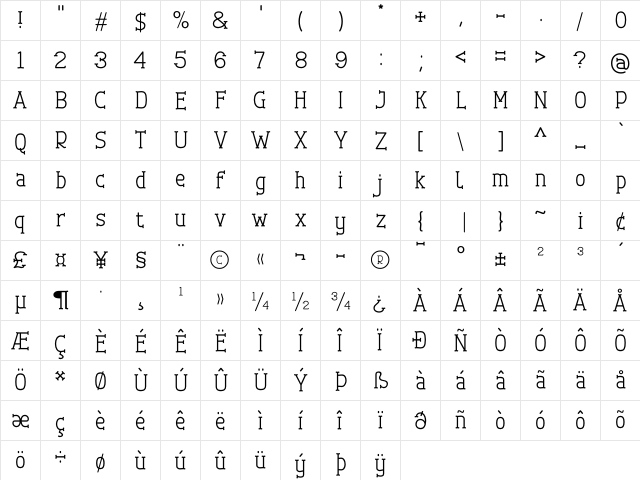
Cherrytha Three Regular
| Designer | Jasman Nazara; Situjuh Nazara |
Design Context for Cherrytha Three Typeface
Cherrytha Three offers clean, dependable letterforms without strong stylistic allegiance, making it a practical choice for designers who need flexibility.
Pro Tip: Use Cherrytha Three in both headline and body roles to test its range before committing to a single application.